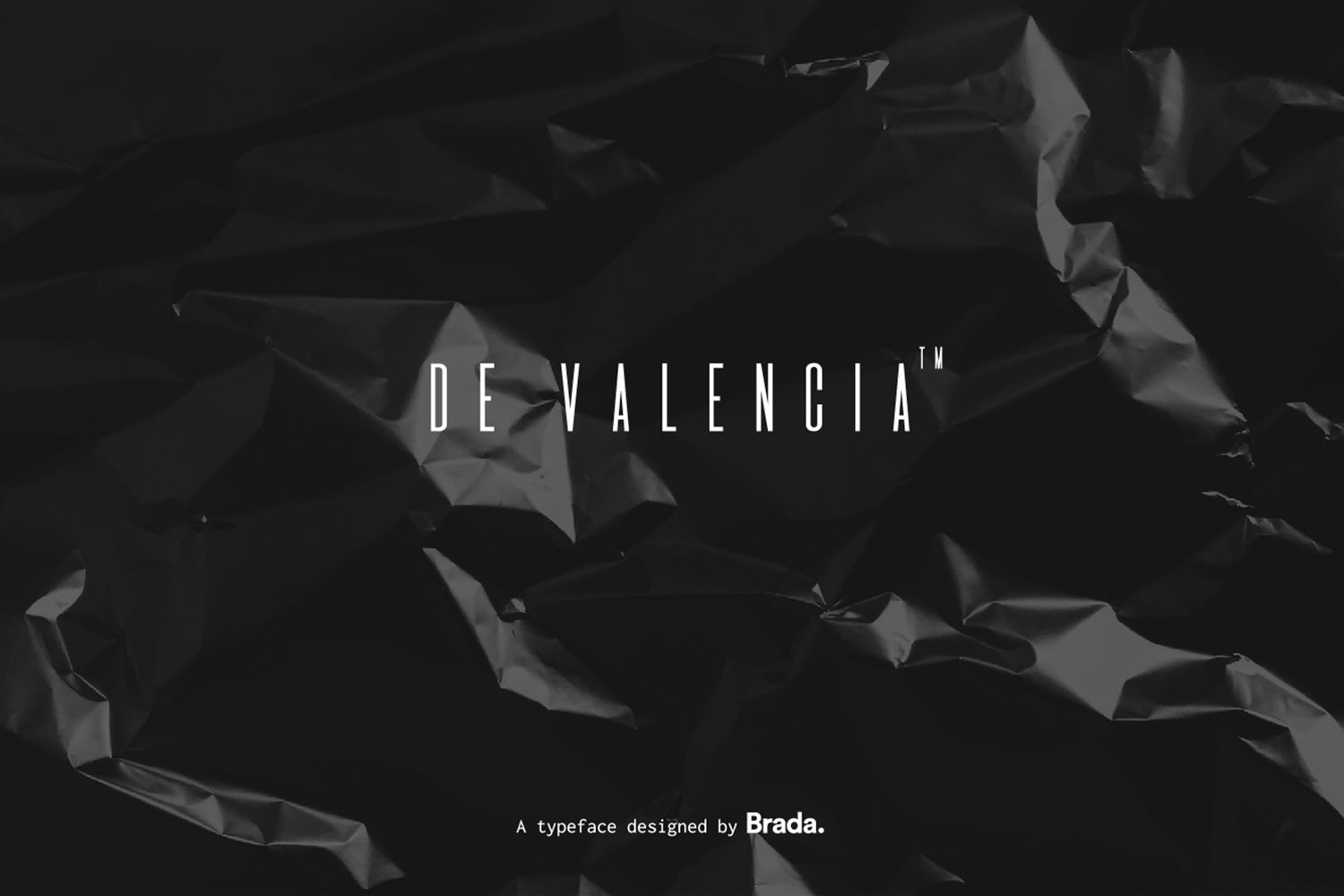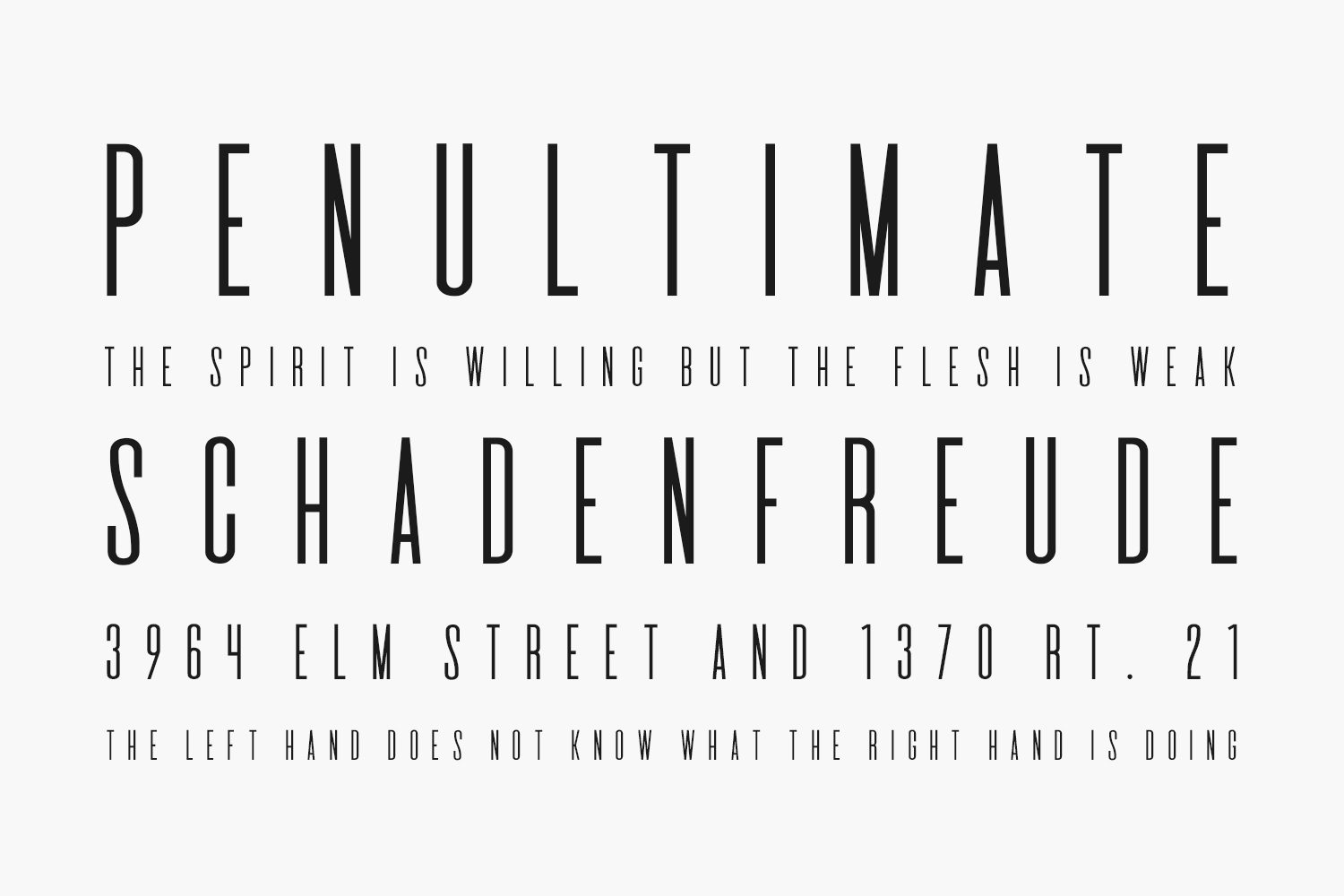
De Valencia is developed by Manuel Fernández del Campo García. This font is a monospaced display typeface with a subtle, elegant and minimalist character, created especially for the Mexican short film “A solas”.